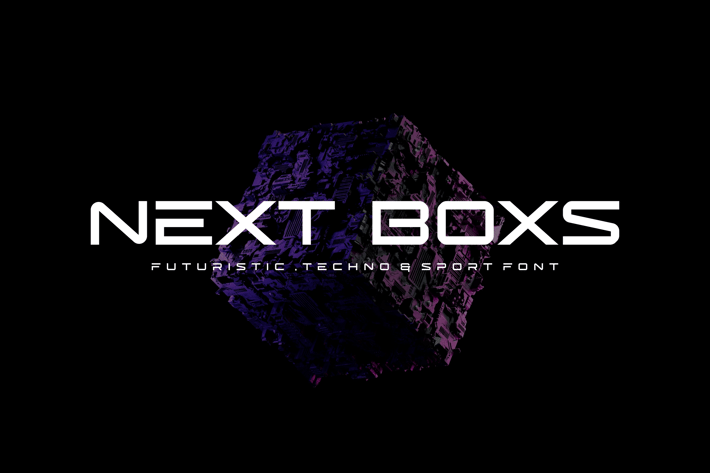
Next Boxs - Futuristic Techno Sport Font
Introducing our new product Next Boxs Font - Futuristic Techno Sport Font
Next Boxs Font - Modern Font is a bold and authentic display font. The font is suitable for any branding project like logo,
t-shirt printing, esport, and many more. outstanding in a wide range of contexts.
* Next Boxs Uppercase